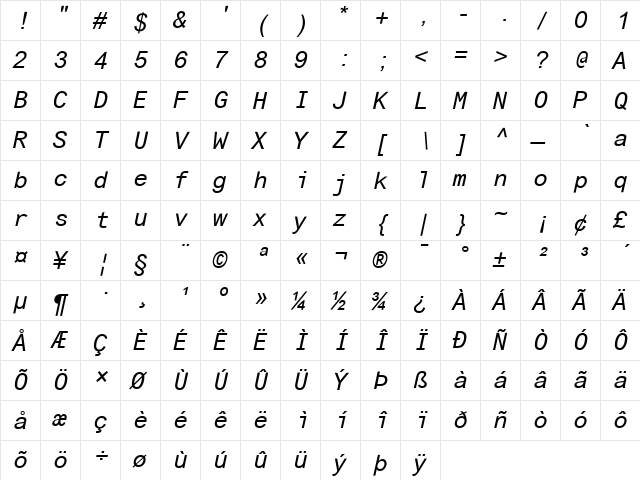
Arial Monospaced MT Italic Font Preview
Design Context for Arial Monospaced MT Typeface
Arial Monospaced MT brings the precise, column-aligned rhythm of monospaced typography to designs that value technical clarity and systematic order. The dynamic lean of this cut emphasises speed and emphasis in any layout.